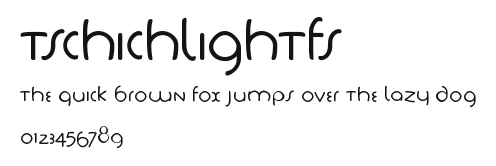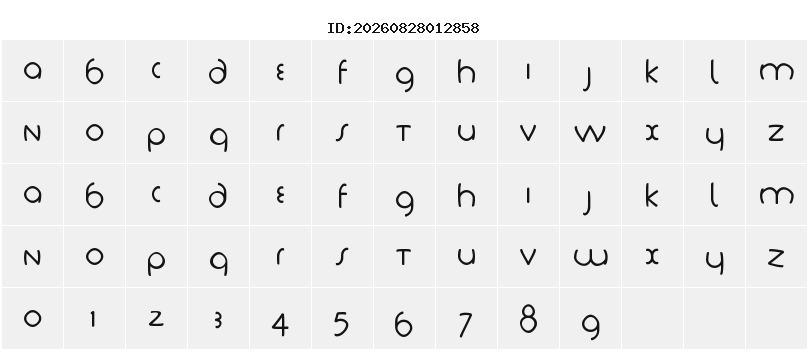
TschichLightFS Preview
• Font Name: TschichLightFS
• Font ID: TschichLightFS
• Full Font Name: TschichLightFS
• Version: 1.0 2002-06-16
• PostScript Name: TschichLightFS
• Character Count: 204
About TschichLightFS.ttf
TschichLightFS.ttf is a modern, elegant sans-serif font designed for ultimate readability and visual harmony. Perfect for branding, headlines, web design, and print materials.